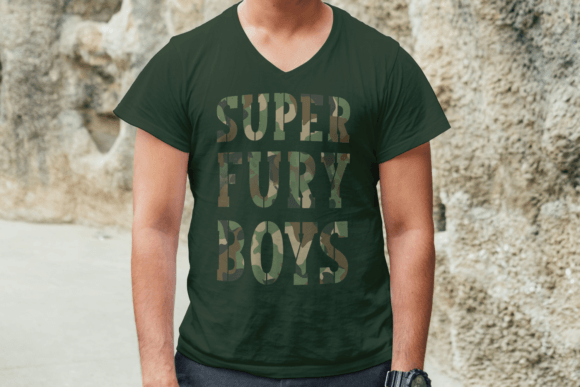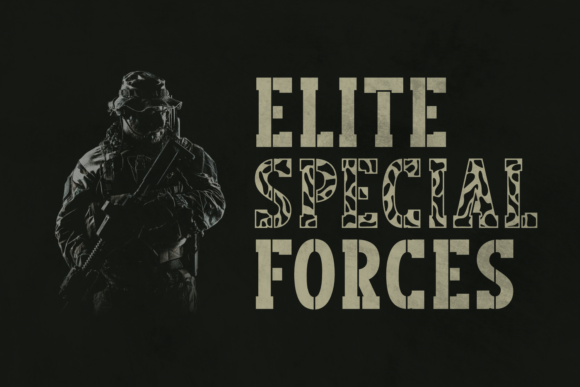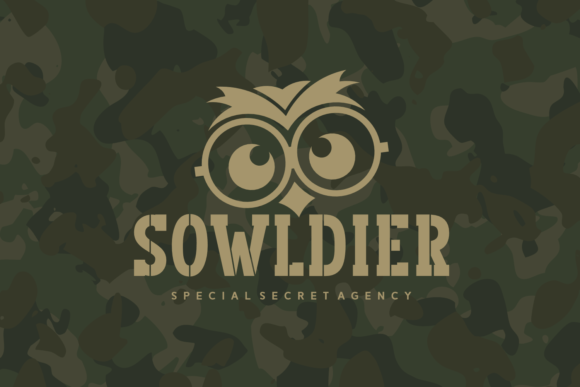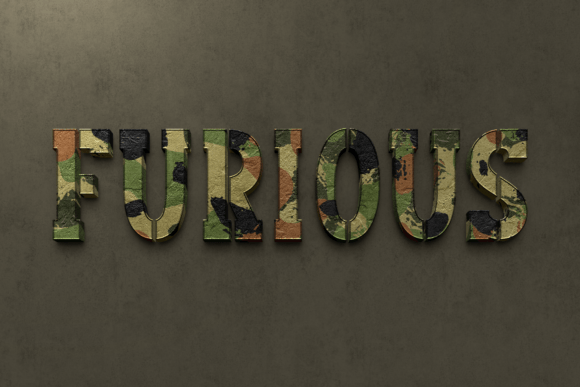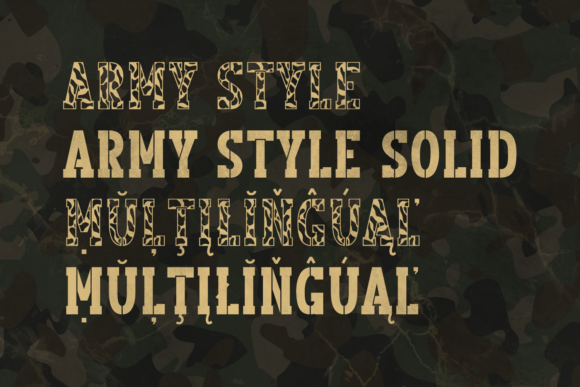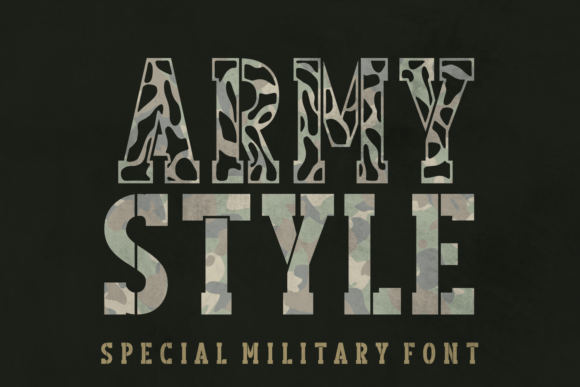
Army Style Font: Adding a Touch of Military Flair to Your Designs
Are you looking for a font that exudes strength, confidence, and a hint of ruggedness? Look no further than the Army Style Font. This cool decorative font is perfect for designers and crafters who want to add a military accent to their work. In this article, we’ll explore the features and uses of the Army Style Font, and why it’s a great addition to your design arsenal.
The Power of Army Style Font
The Army Style Font is a bold and assertive typeface that commands attention. Its strong and rugged personality makes it perfect for designs that require a sense of power and authority. Whether you’re creating a logo, t-shirt design, or poster, this font is sure to make a statement. The font’s military-inspired aesthetic evokes a sense of discipline and professionalism, making it ideal for designs that require a touch of gravitas.
Uses of Army Style Font
The Army Style Font is versatile and can be used in a variety of design projects. Here are some ideas to get you started:
• T-shirts and apparel: Add a military touch to your t-shirt designs with the Army Style Font. It’s perfect for creating bold and eye-catching graphics that will stand out.
• Stickers and decals: Create stickers and decals with a military theme using the Army Style Font. They’re great for laptops, water bottles, and other personal items.
• Headlines and posters: Use the Army Style Font to create bold and attention-grabbing headlines and posters. It’s perfect for advertising, promotions, and events.
• Album covers and music art: Add a touch of military flair to your music art with the Army Style Font. It’s perfect for creating bold and eye-catching album covers.
Why Choose Army Style Font?
So why choose the Army Style Font for your design projects? Here are a few reasons:
• Unique and distinctive: The Army Style Font has a unique and distinctive look that sets it apart from other fonts. Its military-inspired aesthetic adds a touch of ruggedness and authority to your designs.
• Highly versatile: The Army Style Font is highly versatile and can be used in a variety of design projects. Whether you’re creating a logo, t-shirt design, or poster, this font is sure to work well.
• Easy to read: Despite its bold and rugged aesthetic, the Army Style Font is easy to read and understand. This makes it perfect for designs that require a clear and concise message.
Tips for Using Army Style Font
Here are a few tips for using the Army Style Font in your design projects:
• Use it sparingly: While the Army Style Font is bold and attention-grabbing, it can be overwhelming if used too much. Use it sparingly to add a touch of military flair to your designs.
• Pair it with other fonts: The Army Style Font works well when paired with other fonts. Try pairing it with a clean and simple font to create a bold and eye-catching design.
• Experiment with colors: The Army Style Font works well in a variety of colors. Experiment with different colors to find the one that works best for your design.
Font Name Army Style Font
Author Rian (7NTypes)
The Army Style Font is a cool and decorative font that’s perfect for designers and crafters who want to add a military accent to their work. Its strong and assertive personality makes it perfect for designs that require a sense of power and authority. With its versatility, unique aesthetic, and ease of use, the Army Style Font is a great addition to your design arsenal. So why not give it a try and see how it can enhance your designs?